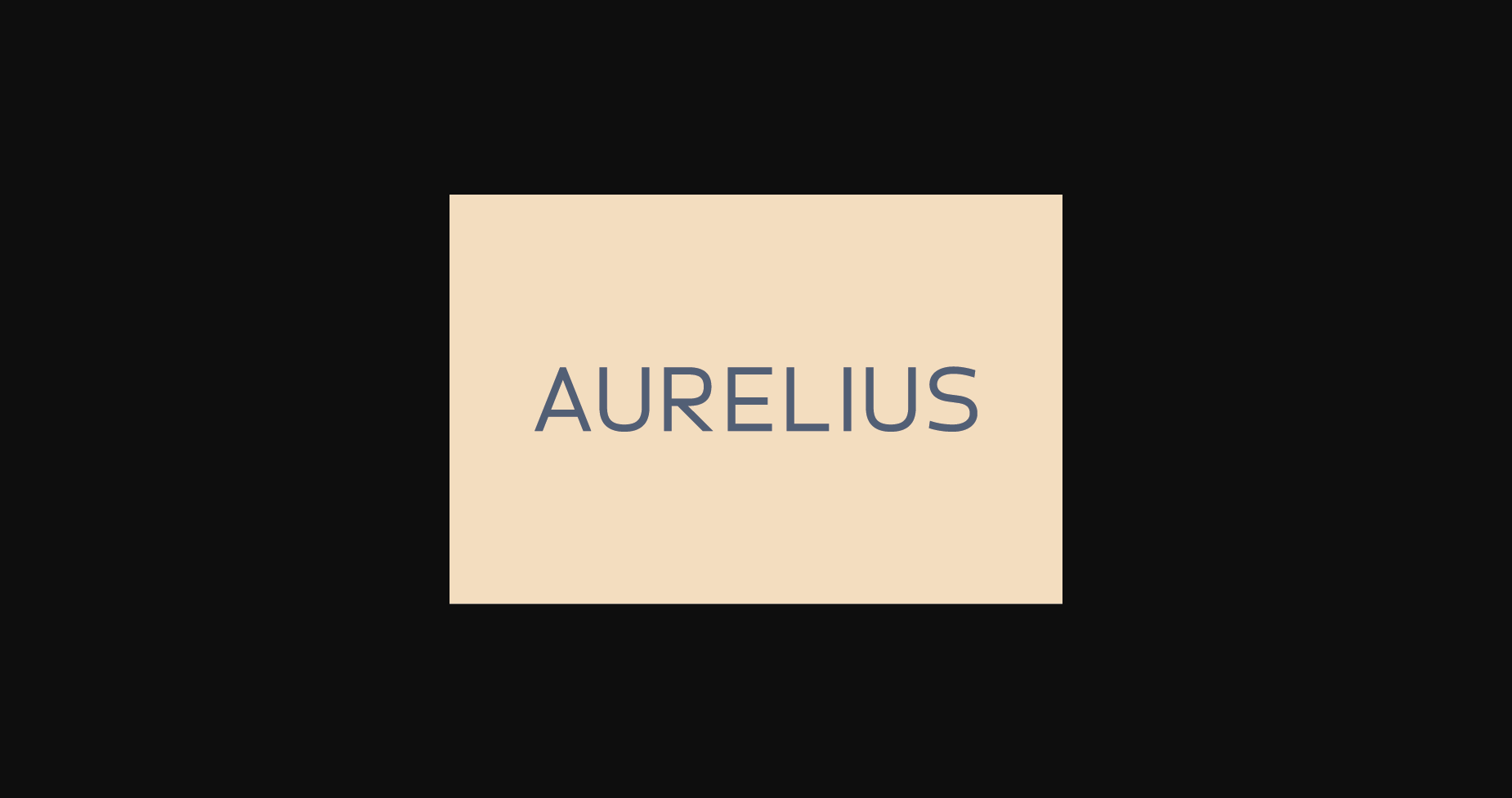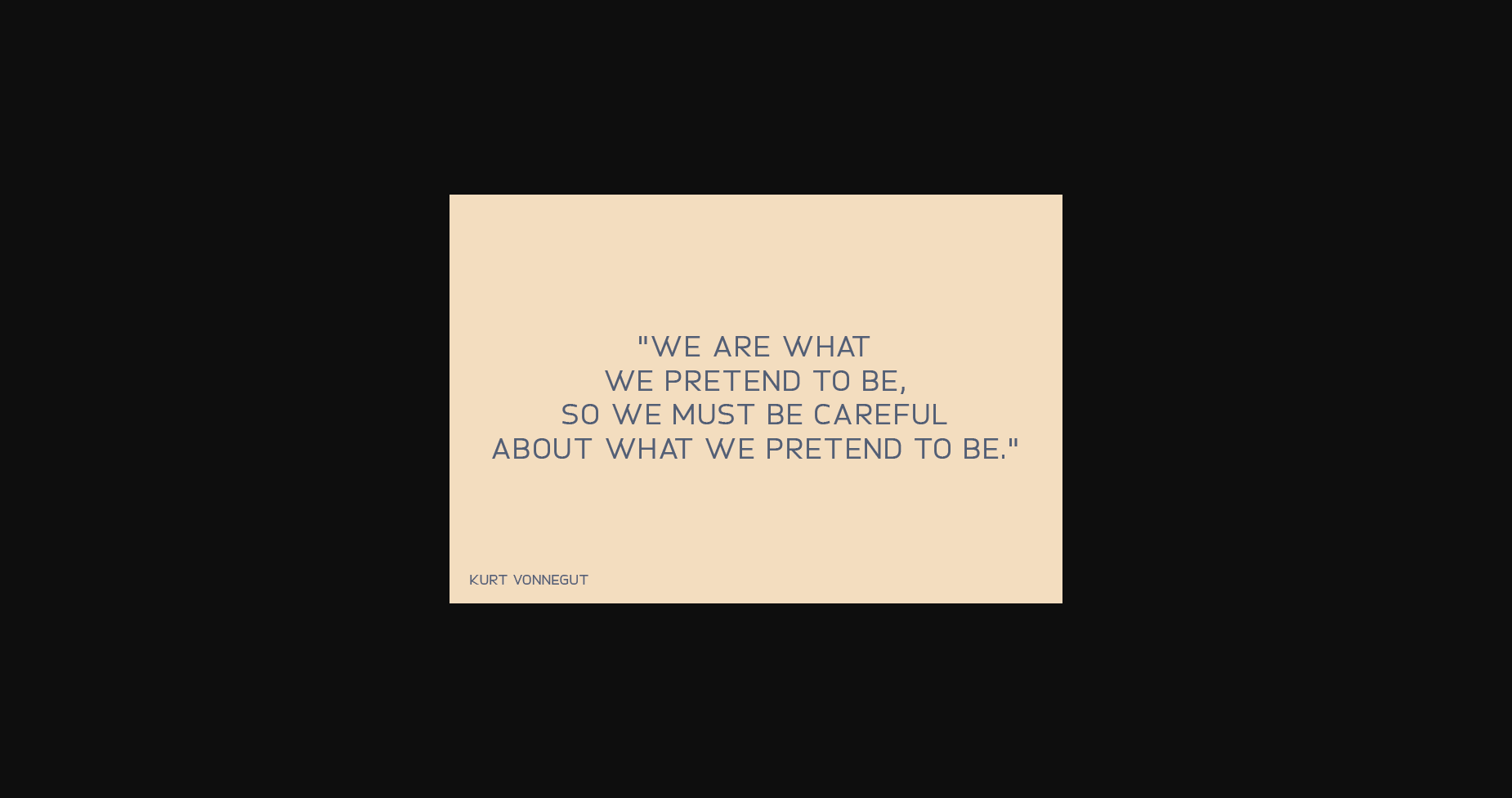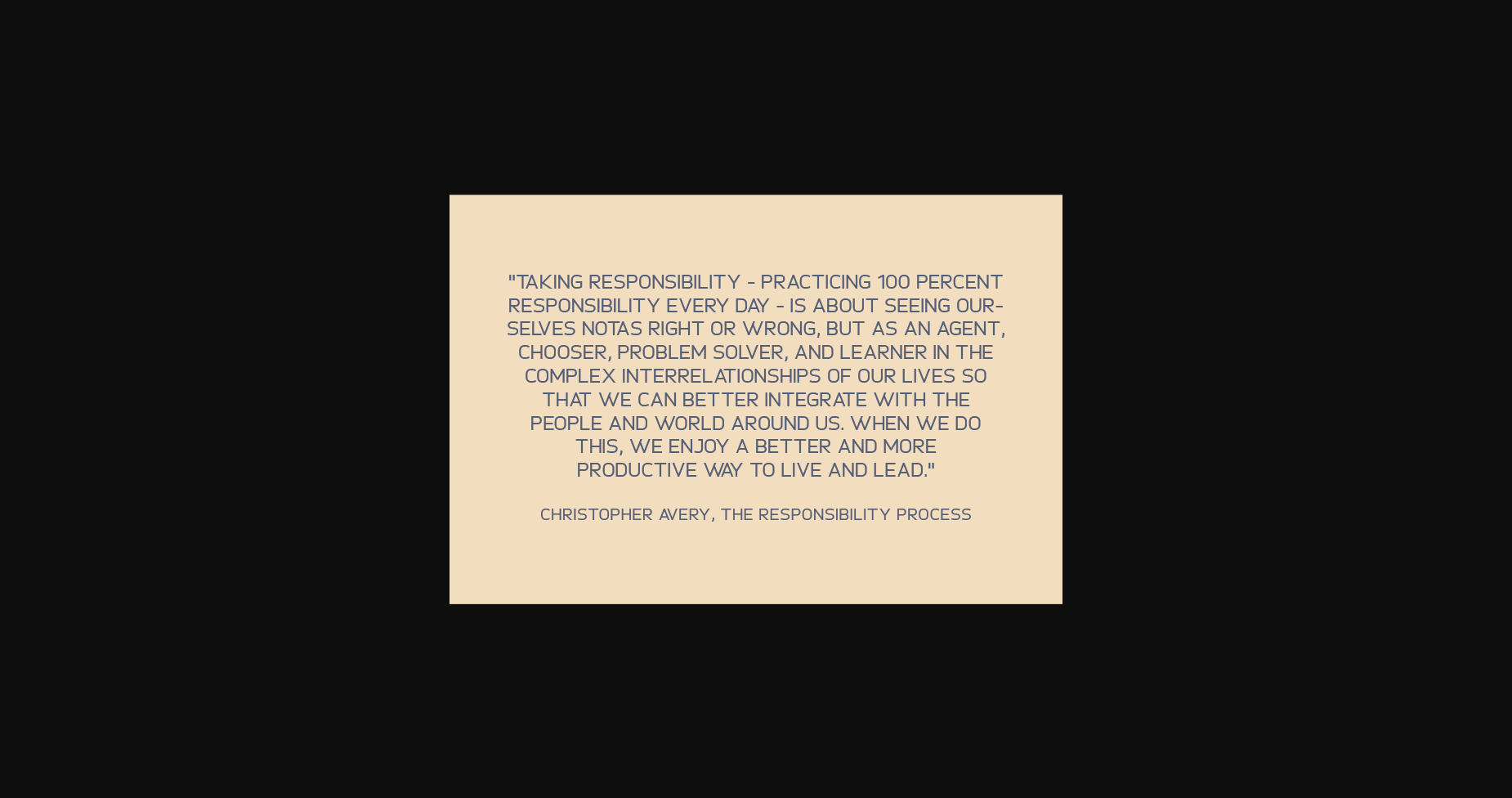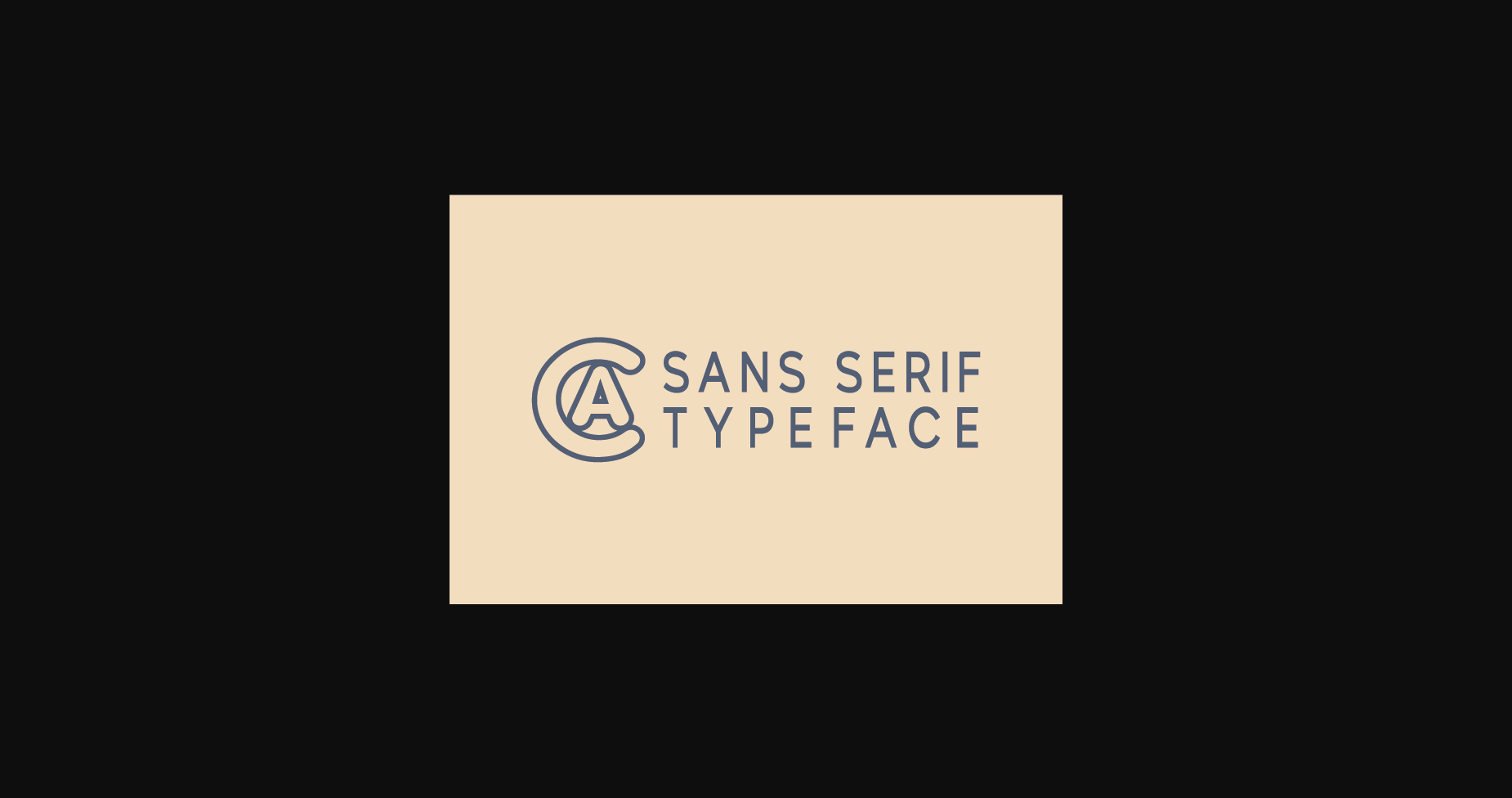
About Aurelius Font
Introducing Aurelius, a modern, classy sans serif typeface. A sans serif typeface that contains upper characters, numbers 0-9, and a range of punctuation and symbols. An extremely versatile font, perfect for logos, weddings, invitations, quotes, advertisements, print, magazines, and more!